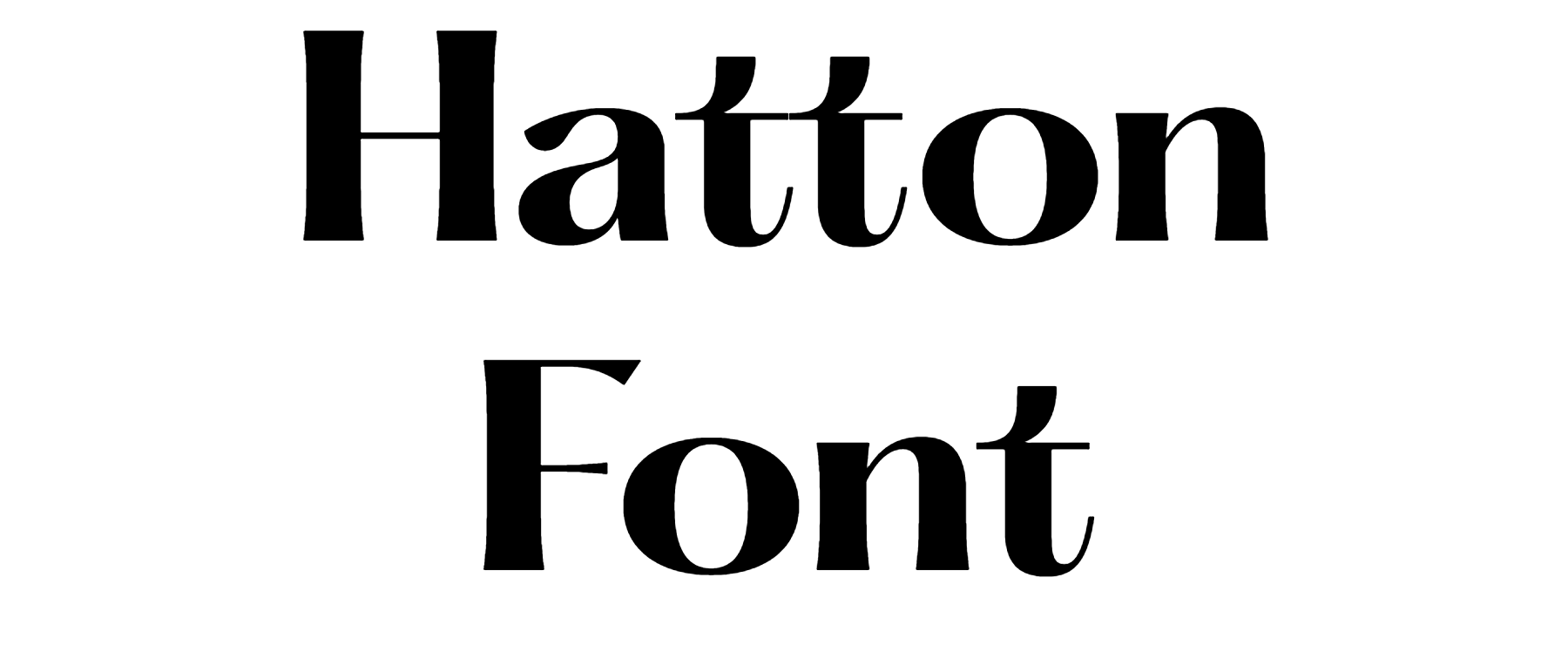
Hatton Font
Hatton
Hatton is a serif font created by Mathieu Desjardins and released through Pangram Pangram® Foundry. Small strokes at the ends of its letters (the serifs) give it a classic, trustworthy look. The free download includes three styles, and you can try every one of them with your own text in the preview above.
What You Can Type With Hatton
You get every letter from A to Z in both cases and all the numbers from 0 to 9, which means Hatton can handle full sentences, dates and prices. Everyday marks like &, !, ? and @ are there too. Thanks to its accented letters, it also works for Spanish, French, German, Portuguese and Italian, not just English.
Where Hatton Works Best
Designers usually reach for fonts like Hatton when they're making book covers, magazine headlines and classic branding. Serif fonts shine in headlines and printed text. For long paragraphs on phones, check that it still reads well at small sizes. Because the family has more than one style, you can mix them in a single design for headings, subheadings and highlights.
Does Hatton support accented letters?
Yes. Hatton includes the accented letters needed for Spanish, French, German, Portuguese and Italian, so it works for more than just English.